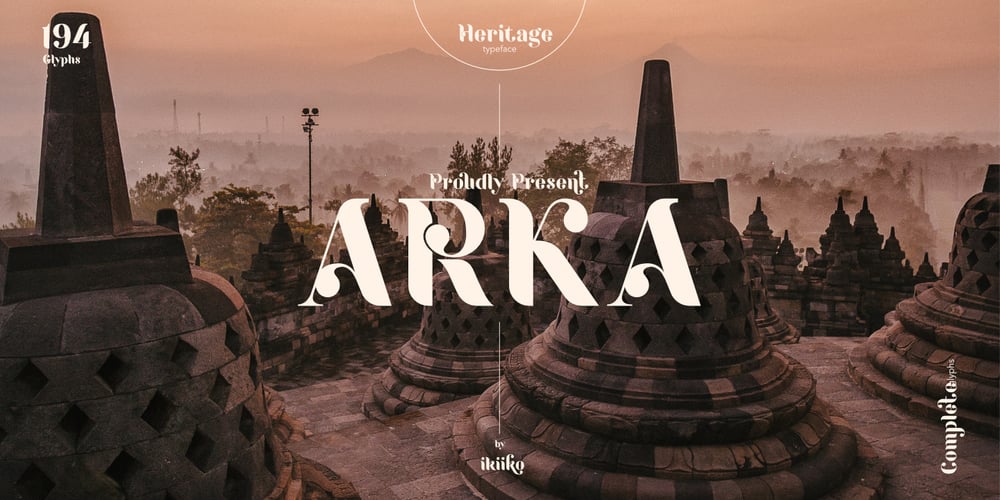
Arka Heritage Font Family was designed by Andhika Pradana and published by IKIIKOWRK. Arka Heritage contains 1 styles and family package options. Proudly present ARKA typeface, created by ikiiko.A beautiful heritage feel & look with a touch of craftmanship typeface. ARKA was crafted by hand with love to traditional heritage to get elegant font with beautiful ligatures. All characters have an perfect shape design. It easily cooperating together and perfect for crafting the traditional style logos, labels, package design, lettering, patterns and others.What’s Included? Uppercase & Lowercase, Numbers, Punctuation Complete Stylist & Ligatures Multilingual support Format File : TTF & OTF Works on PC & Mac Get also a good offer & FREEBIE at our site : www.ikiiko.comEnjoy our font and if you have any questions, you can contact us by email : ikiikowrk@gmail.com